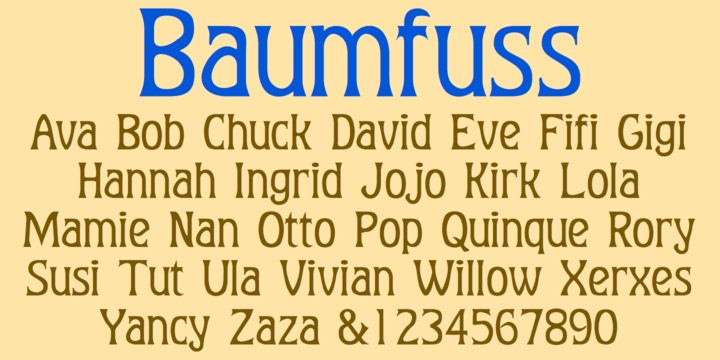
Baumfuss Font
Baumfuss Font is perfect for German-inspired branding, traditional European restaurant menus, craft beer labels, folk festival signage, heritage tourism materials, Oktoberfest promotions, Alpine resort marketing, and cultural event publications where European tradition and authenticity are celebrated.
What makes Baumfuss Font so exciting is its remarkable ability to capture the robust spirit of Central European typography traditions while adapting seamlessly to contemporary design requirements. The strong, rooted letterforms evoke images of ancient oak trees and time-honored craftsmanship that resonates with audiences seeking authentic cultural experiences.
The Baumfuss Font family includes light, regular, bold, and black weights, with decorative variants and traditional European flourishes that provide designers with comprehensive tools for creating authentic Germanic and Alpine-themed brand systems.
This distinctive typeface represents the perfect fusion of European heritage and modern functionality, combining traditional German typography principles with contemporary digital precision. The Baumfuss Font Free Download gives cultural brands access to typography that embodies centuries of European design tradition.
The font's sturdy character construction and traditional proportions create immediate associations with German craftsmanship and European cultural heritage. Each letterform has been carefully developed to maintain historical authenticity while ensuring optimal performance in modern applications.
Baumfuss Font excels in creating memorable brand identities that communicate cultural authenticity and traditional European values. The typeface's distinctive personality makes it ideal for businesses wanting to emphasize their connection to German, Austrian, or Swiss cultural traditions.
From traditional breweries to Alpine tourism operators, this font brings cultural depth that connects with audiences seeking authentic European experiences. The versatile design maintains its traditional character across both heritage applications and contemporary marketing materials.